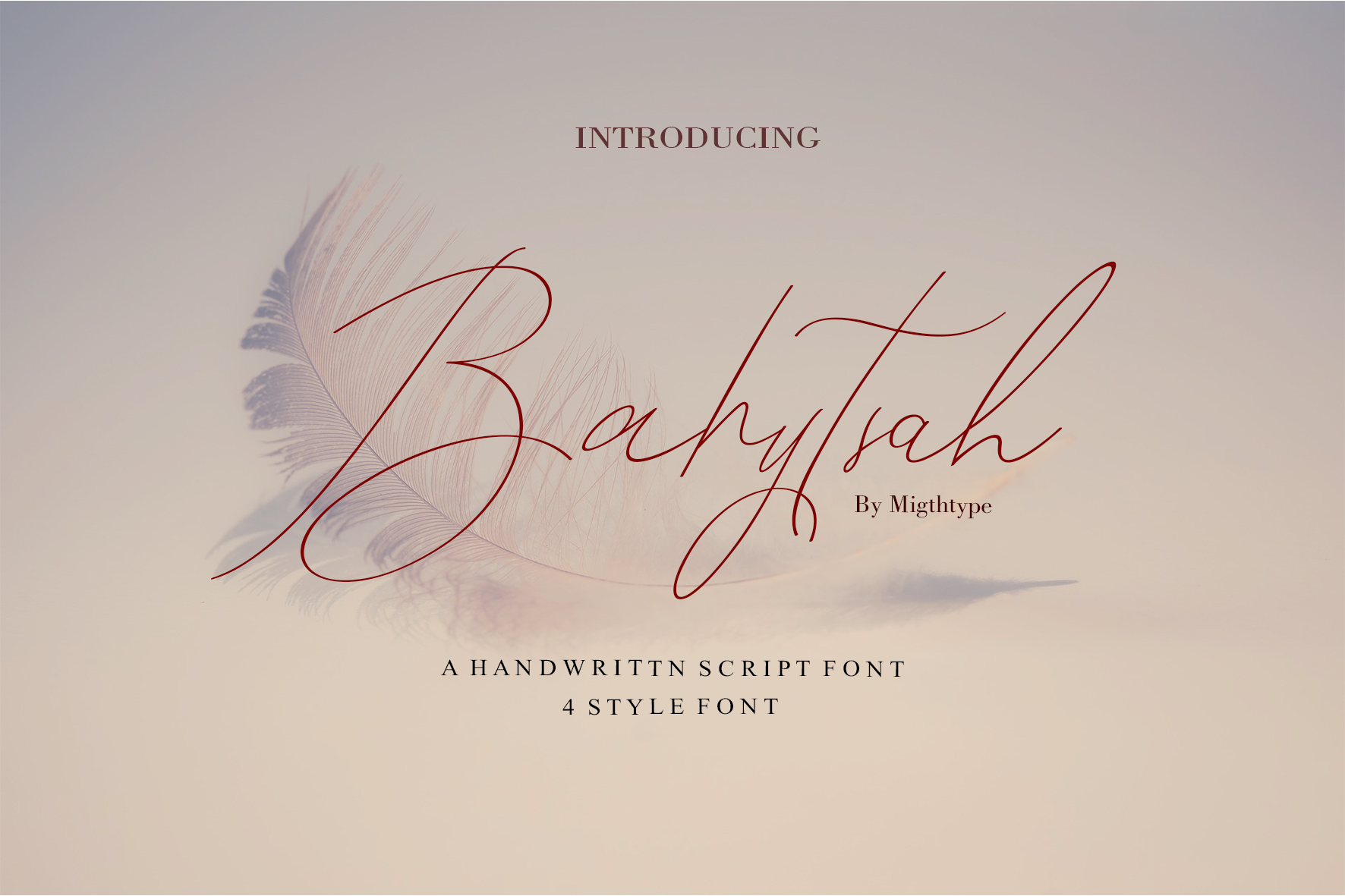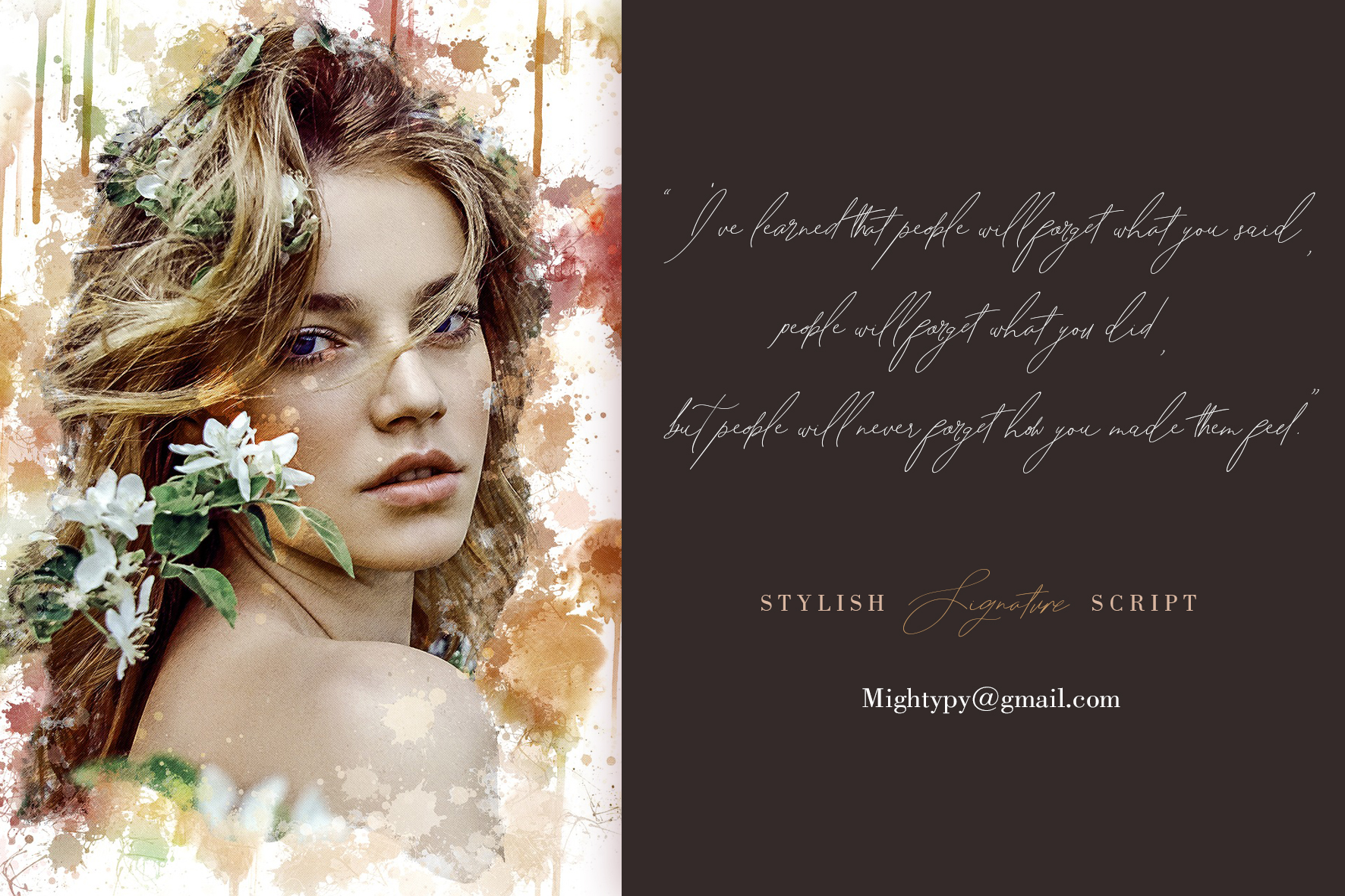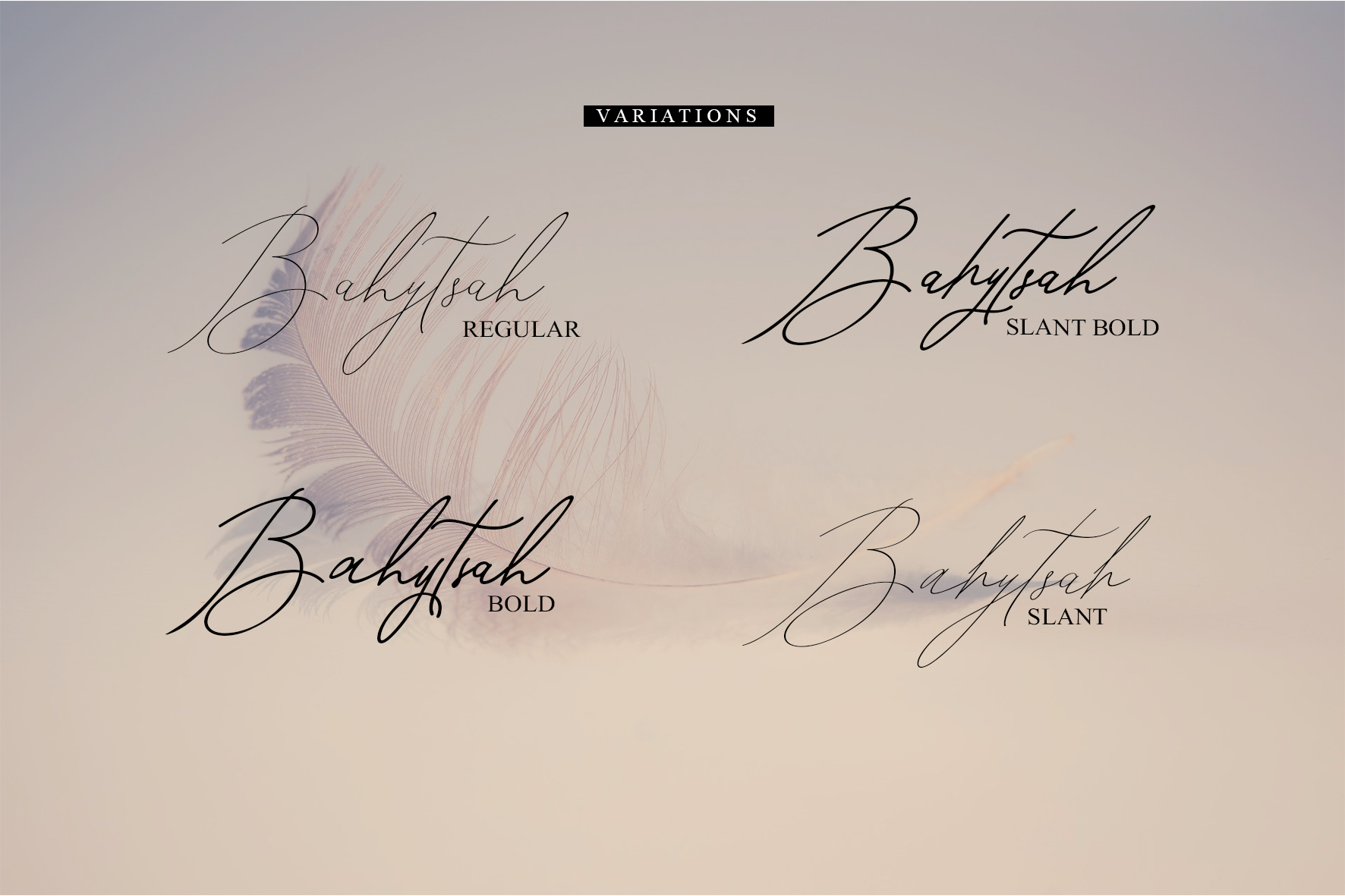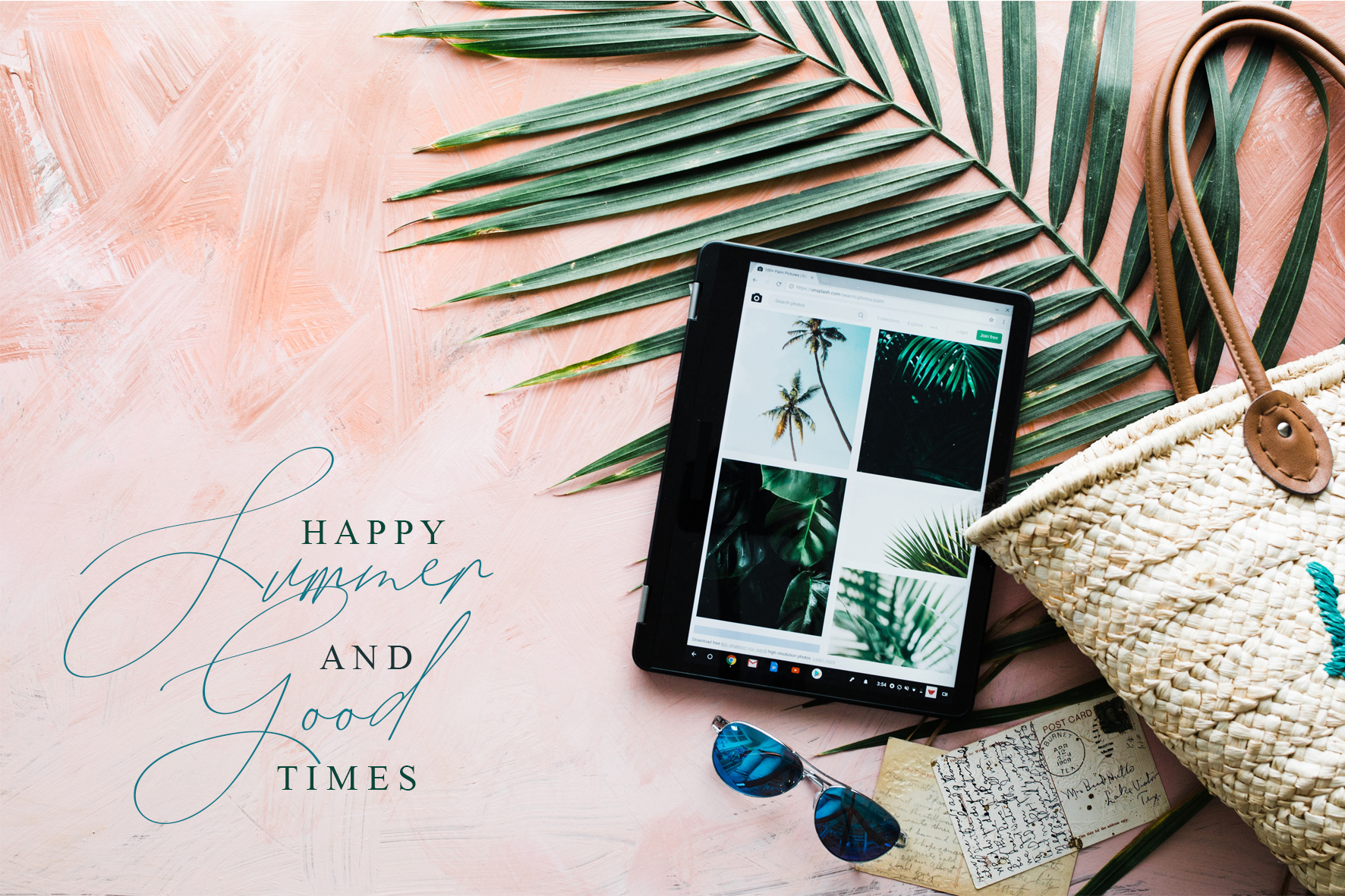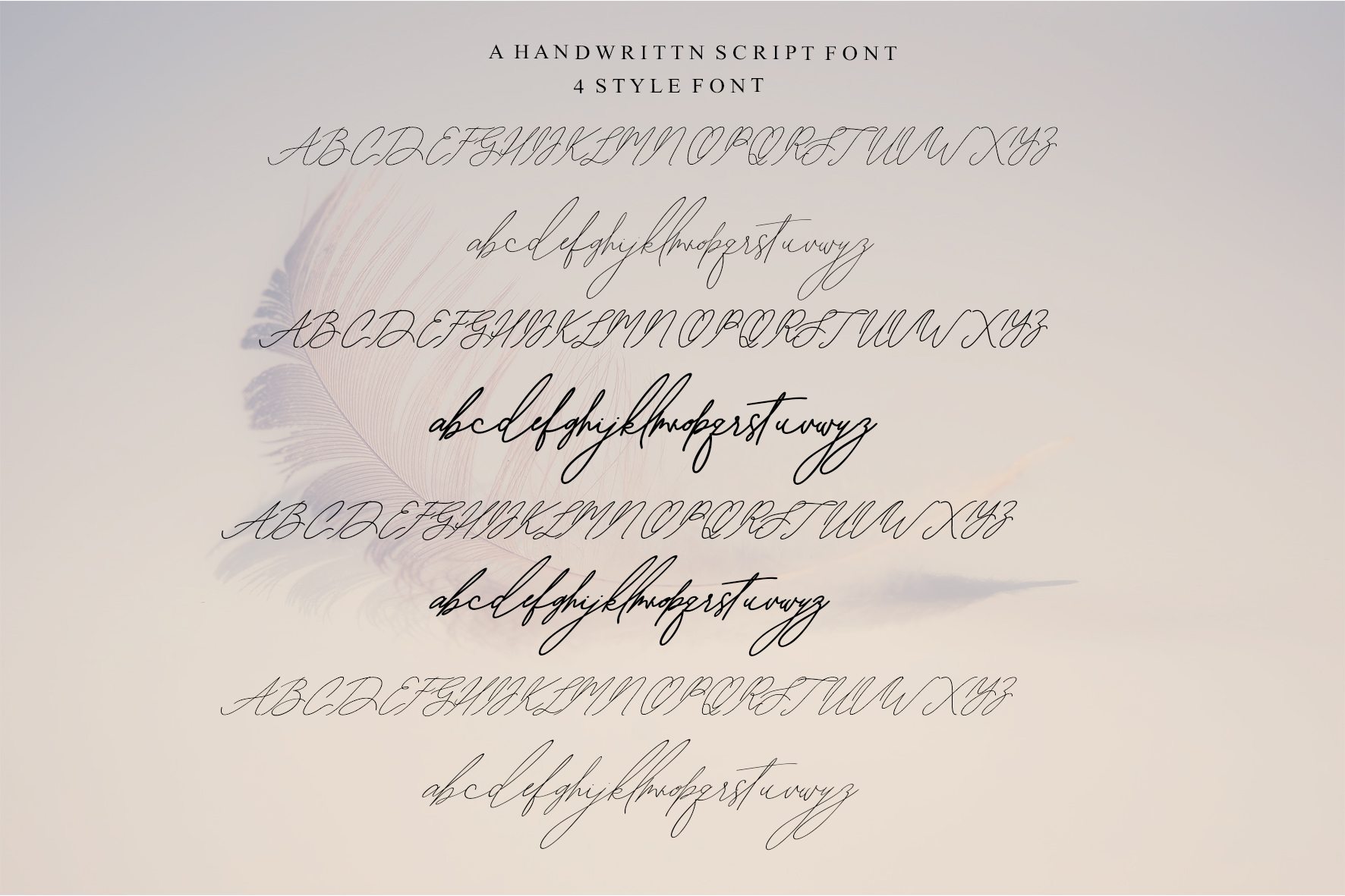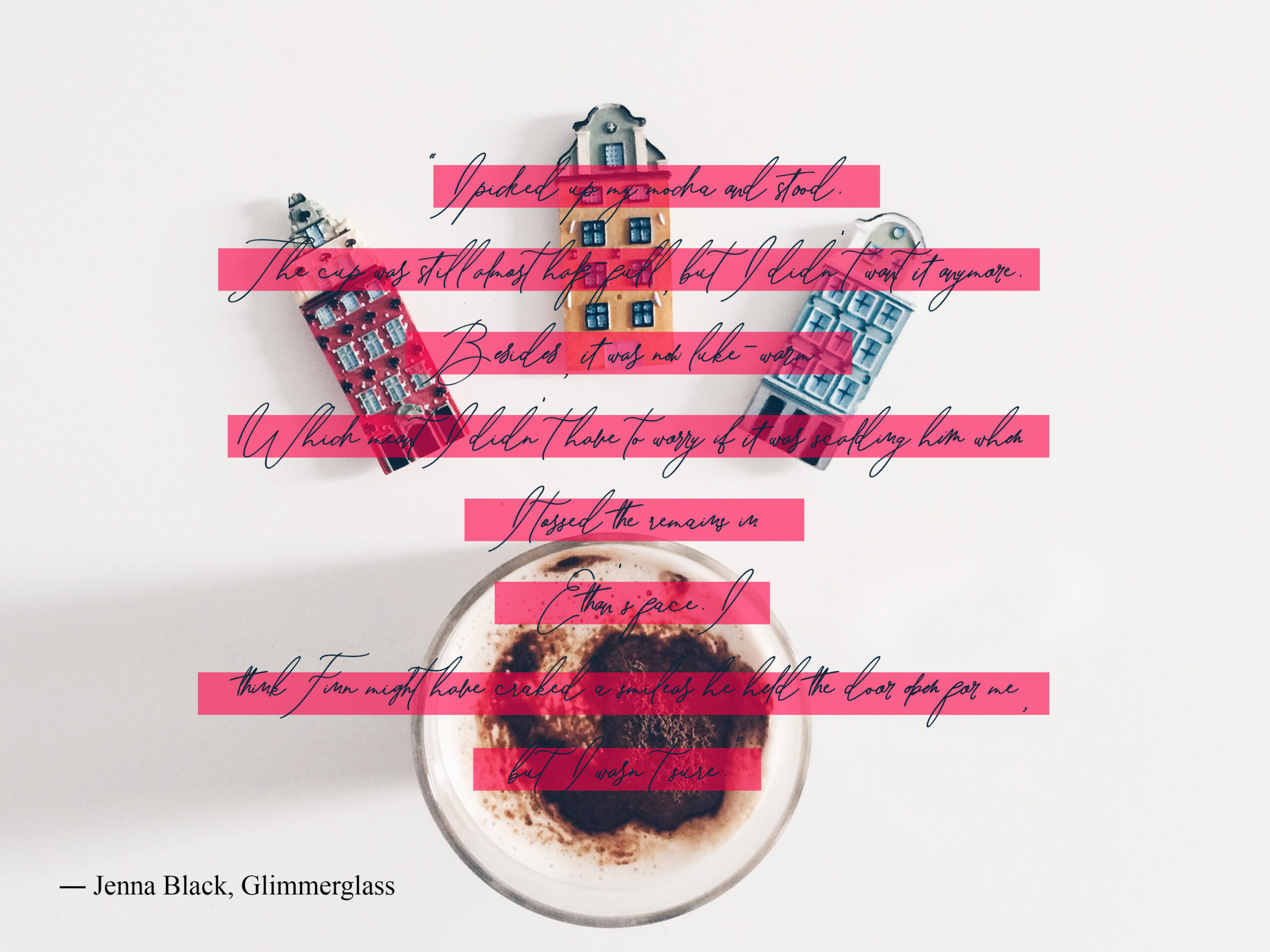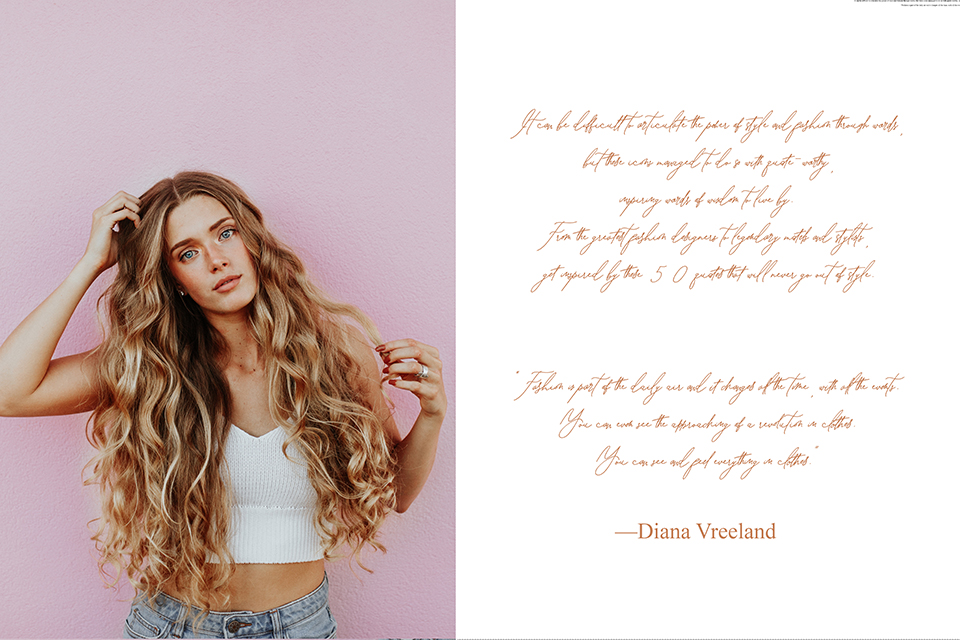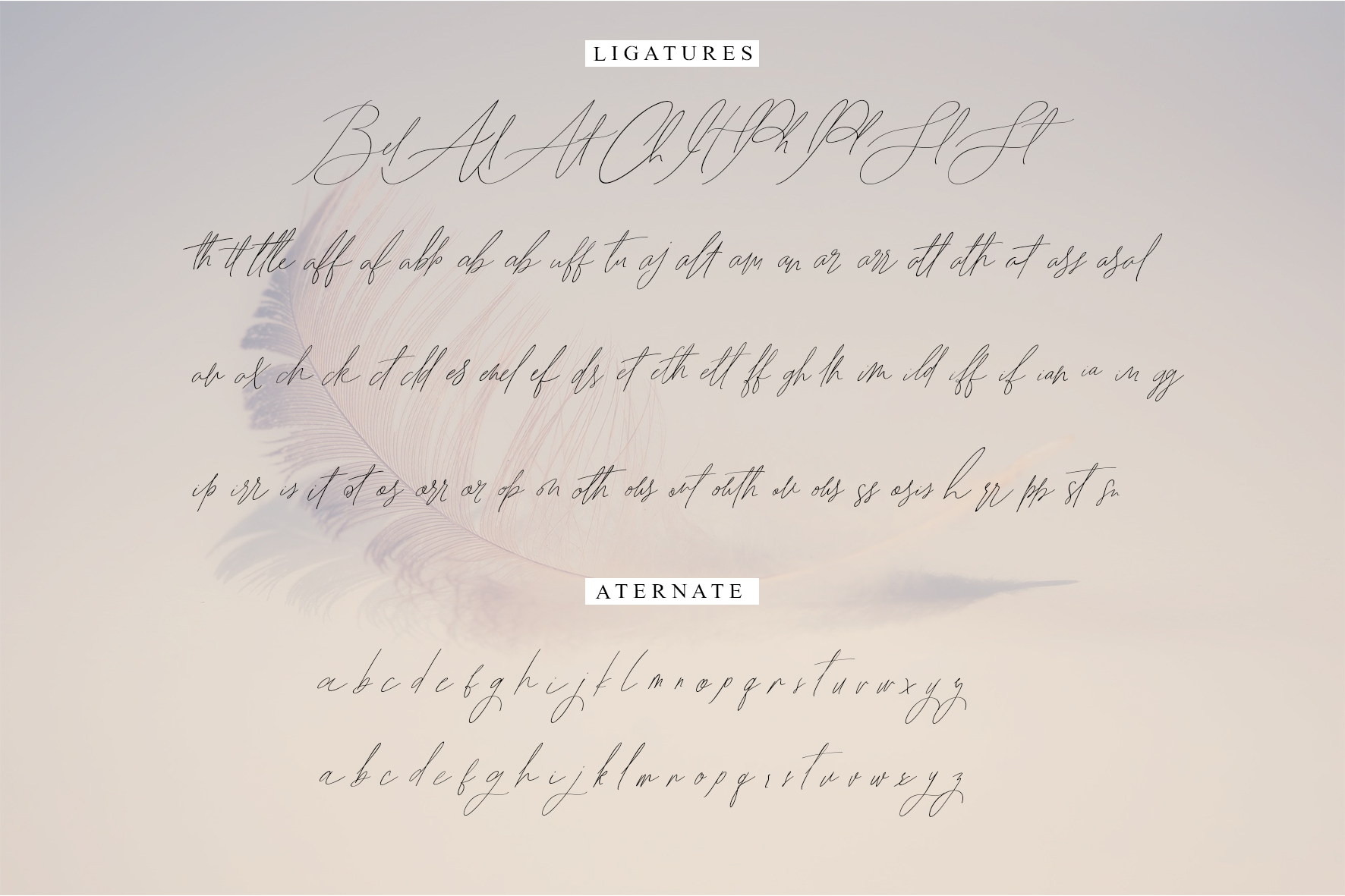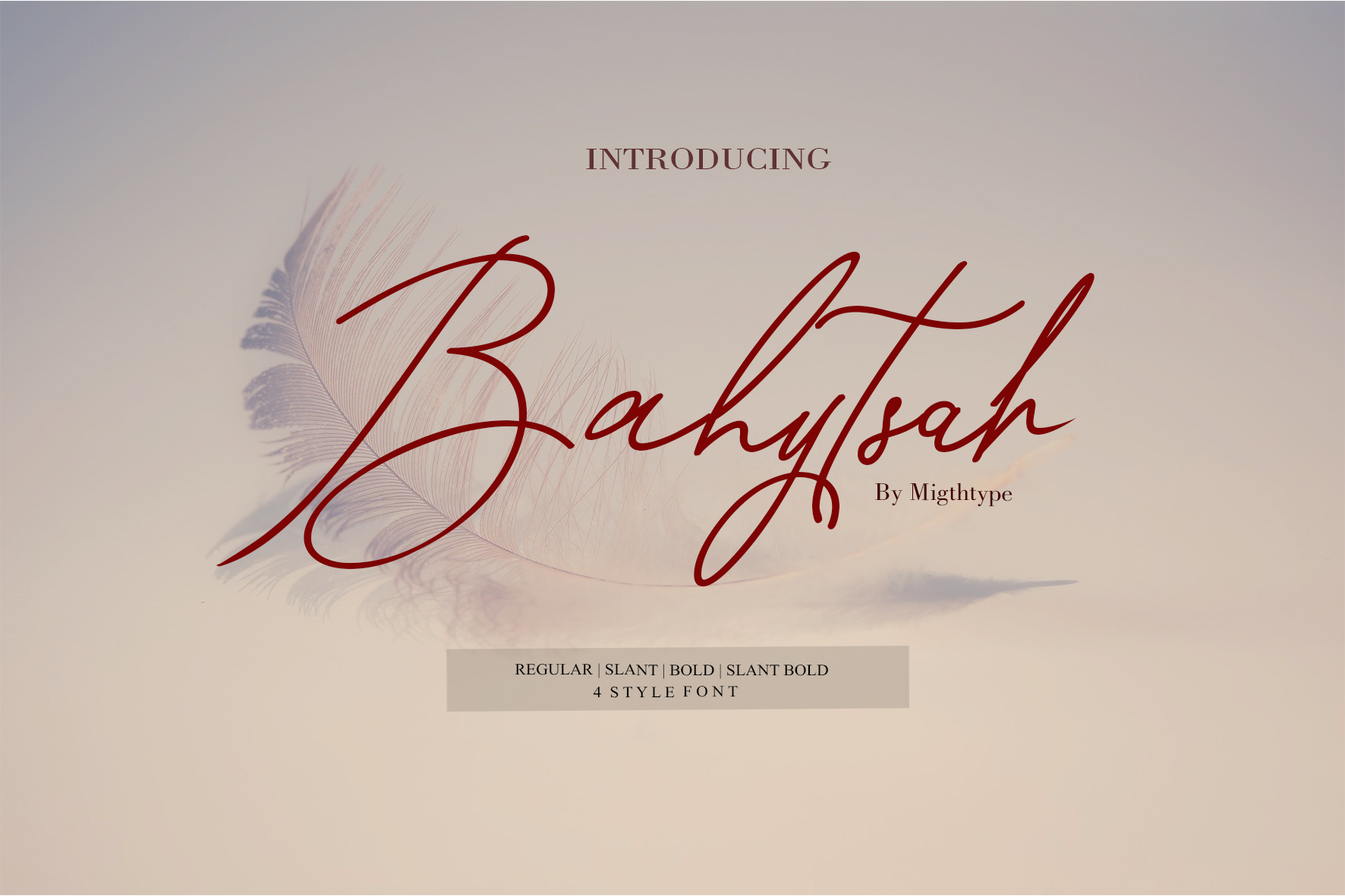
Bahytsah Font
About Bahytsah Font
Bahytsah is a modern calligraphy script font, fully immersed in current style trends. This handwritten font is perfect for a large number of projects with tons of glyphs and style variations.